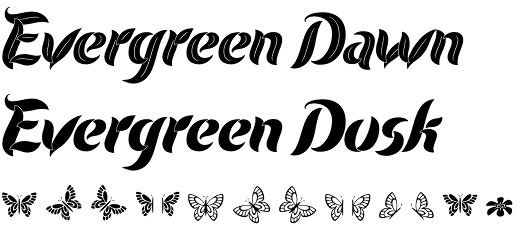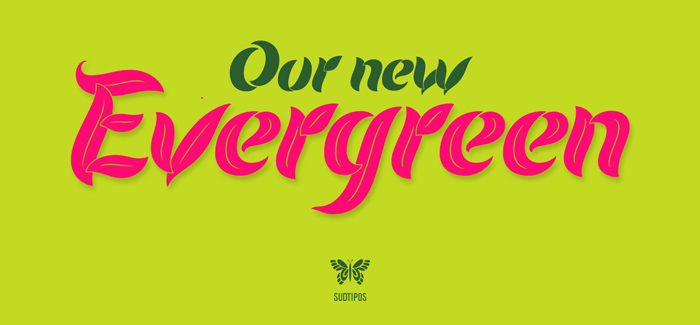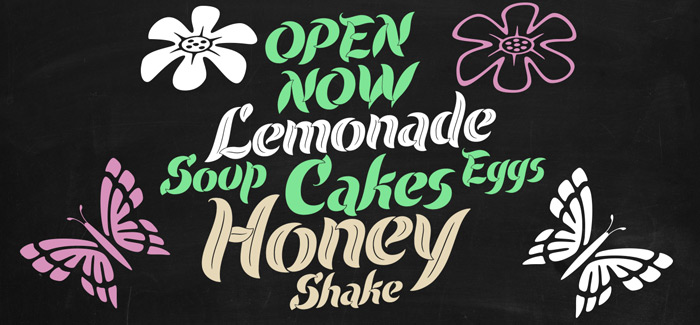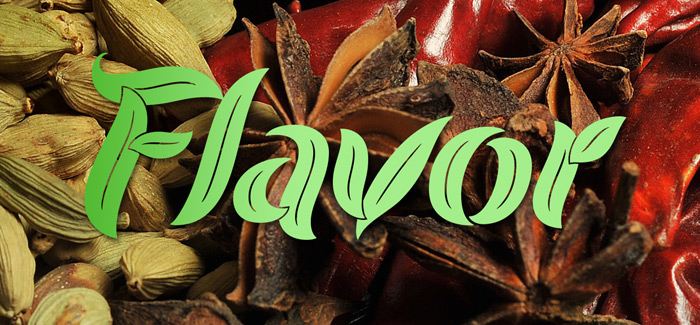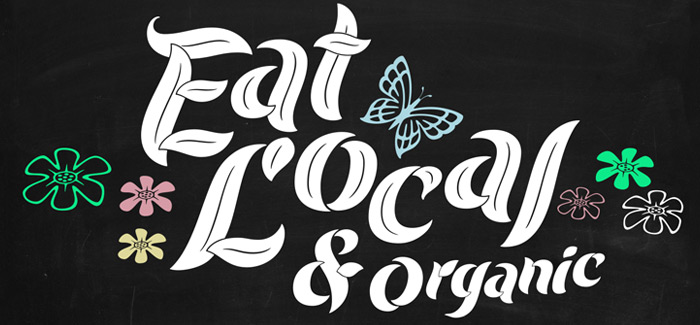
Evergreen font
Evergreen font is another exciting collaboration between Ale Paul and Angel Koziupa (Biographer, Festival Script, Bravissima Script). It’s a decorative slanted typeface designed in two separate styles – regular (Evergreen Dusk) and inline (Evergreen Dawn) – having very specific architecture of characters. All of them are created with leaf-like elements – overlapping and winding in a perfect shape making every letter piece of art. Think freshness, green, ecology, organic & bio – that’s what this font is about. Every organic food package, ecology poster, bio juice logo will need a font like Evergreen to convey the message of clean and beautiful nature we all dream of.
Designers: Alejandro Paul, Angel Koziupa
Publisher: Sudtipos